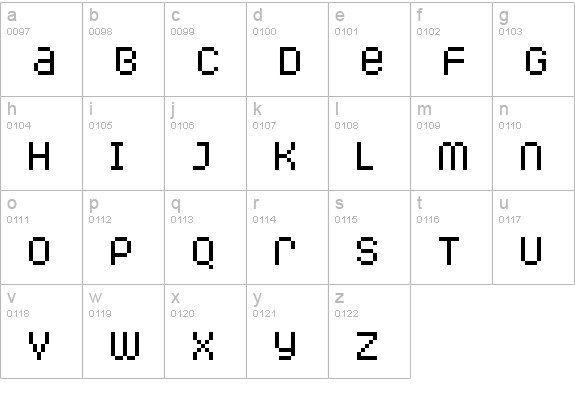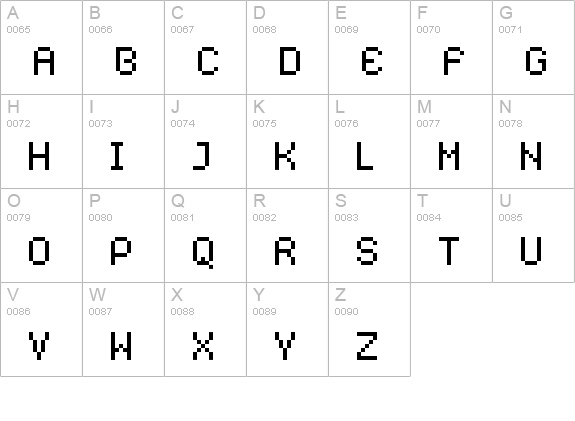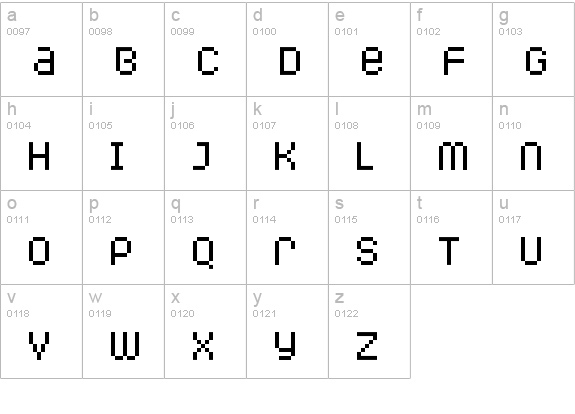
CALIPER-444UC Font Details
CALIPER-444UC font is a stylish and modern typeface that exudes sophistication and elegance. With its sleek lines and contemporary appeal, this font is perfect for a wide range of design projects, from branding to editorial design. The clean and crisp letterforms of CALIPER-444UC font make it easy to read and visually striking. One of the best things about CALIPER-444UC font is that it is available for free download at FontsMarket.com. This means that you can easily access and use this versatile font in your designs without any cost. Whether you are a seasoned designer or just starting out, CALIPER-444UC font is a valuable addition to your font library. Add a touch of class and sophistication to your projects with CALIPER-444UC font. Download it for free today at FontsMarket.com and elevate your designs to the next level.